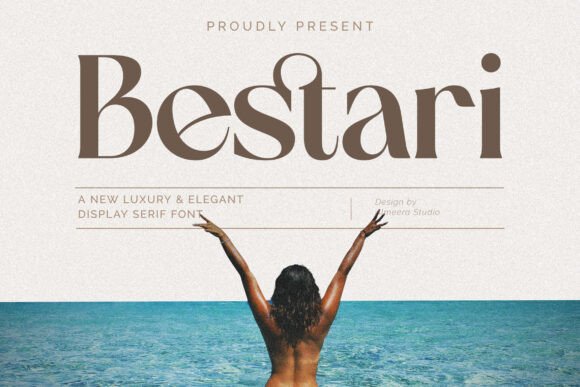
The Ultimate Guide to Bestari Font: Elevate Your Designs with Elegance
I’ll never forget the time I was working on a wedding invitation project, and my client requested a font that was both elegant and minimalist. I scoured the internet, trying out font after font, but nothing seemed to fit the bill. That was until I stumbled upon Bestari Font. ✨
As soon as I saw it, I knew I had found the perfect fit. The clean lines, the subtle serif details, and the overall sophisticated feel of Bestari Font won me over. In this article, I’ll share with you why I love Bestari Font, its features, and how to make the most of it in your designs.
An Honest Review of Bestari Font
What I Love About Bestari Font
• ✨ Minimalist and elegant design: Bestari Font is perfect for creating sophisticated designs that exude refinement and poise.
• ✅ Highly versatile: Whether you’re working on branding projects, logos, social media posts, or product packaging, Bestari Font adapts seamlessly.
• 🌟 Excellent for body text: The font’s clear and readable design makes it ideal for longer blocks of text.
While Bestari Font is an excellent choice for many designs, there are a few things to keep in mind:
• 🤔 Limited availability of stylistic alternates: While Bestari Font does offer some stylistic alternates, the selection is limited compared to other fonts.
• ⚠️ May not be suitable for very large or very small text sizes: Bestari Font looks best at medium to large text sizes; it may become too delicate or too bold at very small or very large sizes.
The Backstory of Bestari Font
Bestari Font was designed by a team of typographers who aimed to create a font that was both elegant and versatile. The font’s name, “Bestari,” comes from the Malay word for “intelligent” or “wise,” reflecting the font’s sophisticated and refined feel.
Q: What is Bestari Font?
A: Bestari Font is a minimalist and elegant serif font designed for a wide range of applications, from branding and logos to social media posts and product packaging.
Q: Is Bestari Font suitable for body text?
A: Yes, Bestari Font is an excellent choice for body text due to its clear and readable design.
Q: Does Bestari Font come with OpenType features?
A: Yes, Bestari Font offers a range of OpenType features, including ligatures, stylistic alternates, and glyphs.